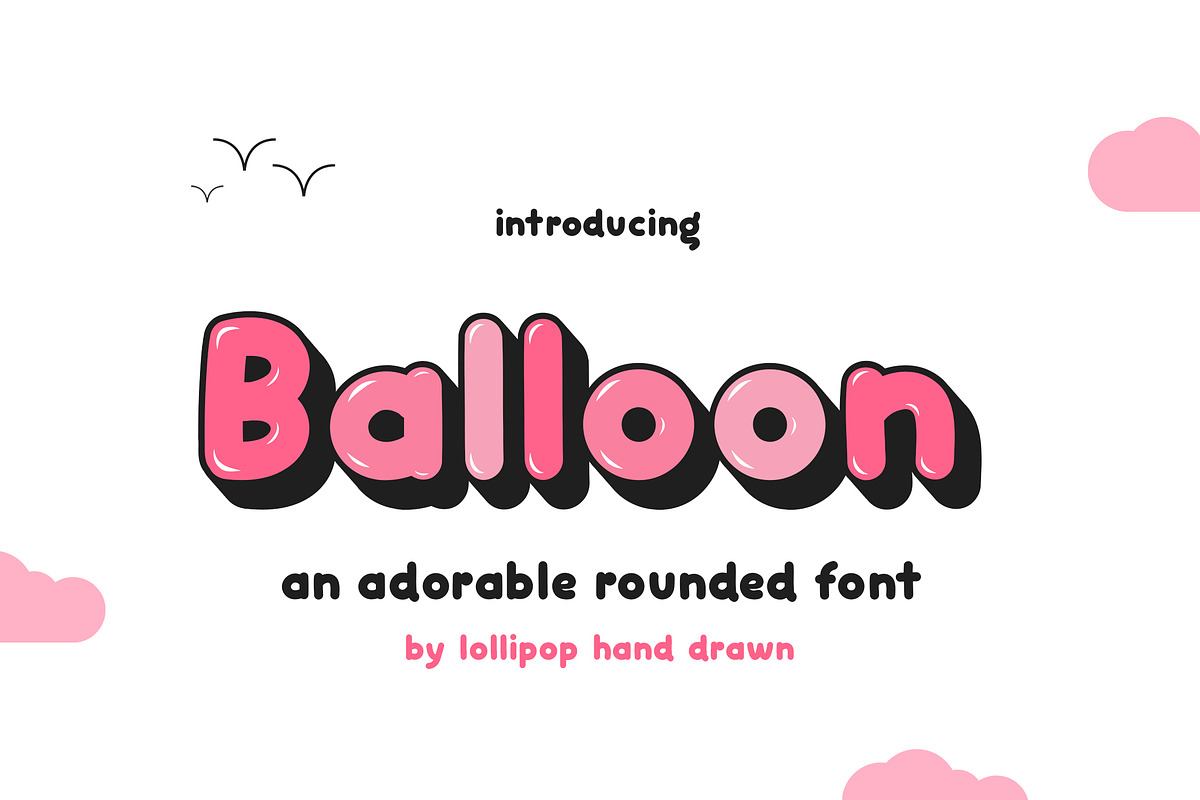
Balloon Font Family Free Download is a playful and whimsical typeface family designed to bring a lighthearted and fun feel to your designs. With its rounded edges and airy forms, the Balloon Font Family is perfect for children's books, birthday invitations, party decorations, playful branding, and other designs that require a friendly, bubbly aesthetic.
The family typically includes various weights, from regular to bold, and may offer italic versions or even multiple styles, giving you flexibility in your creative projects. Whether you're working on logos, social media graphics, or packaging, this font family adds charm and personality to your work.
The Balloon Font Family includes uppercase and lowercase letters, numerals, punctuation, and multilingual support, ensuring it’s versatile for various design applications in both print and digital media.